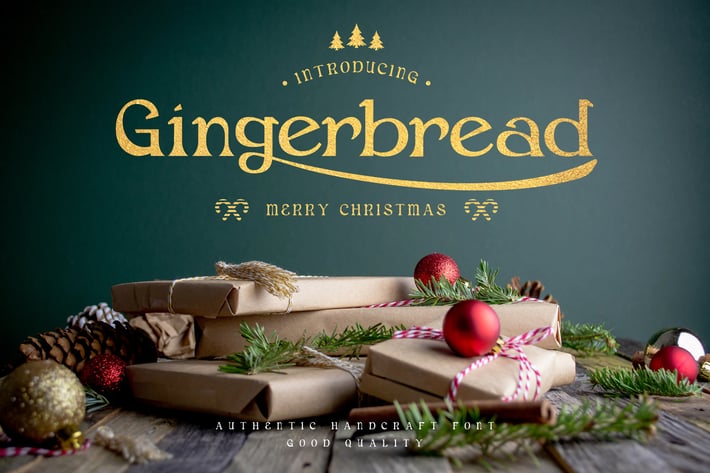
Gingerbread - Decorative Christmas Serif Font
Are you looking for a nice decorrative serif font for christmas? We can help! Try to download our gingerbread font. The font is suitable to use for all all purpose. Try to use it on Wedding invitation, greeting card, poster, quotes, postcard, photography, branding, editorial, and signature to see the best of it :)